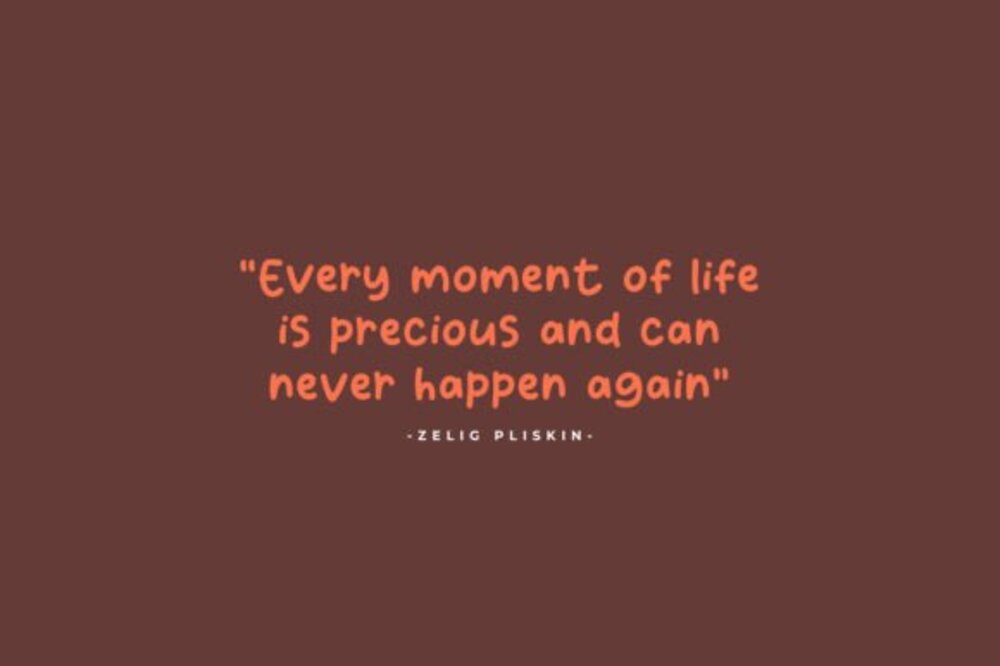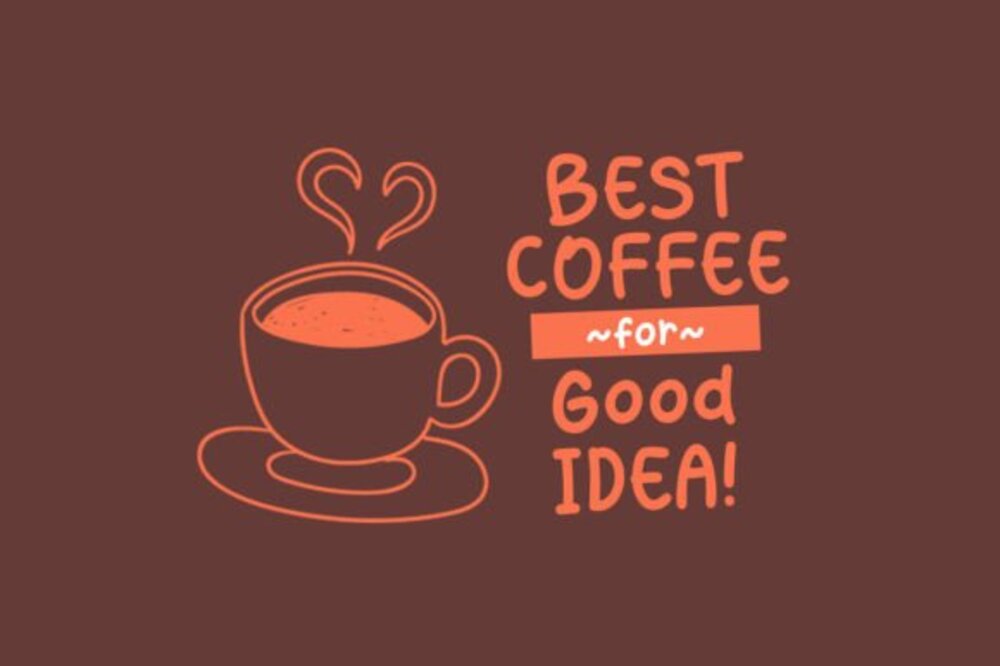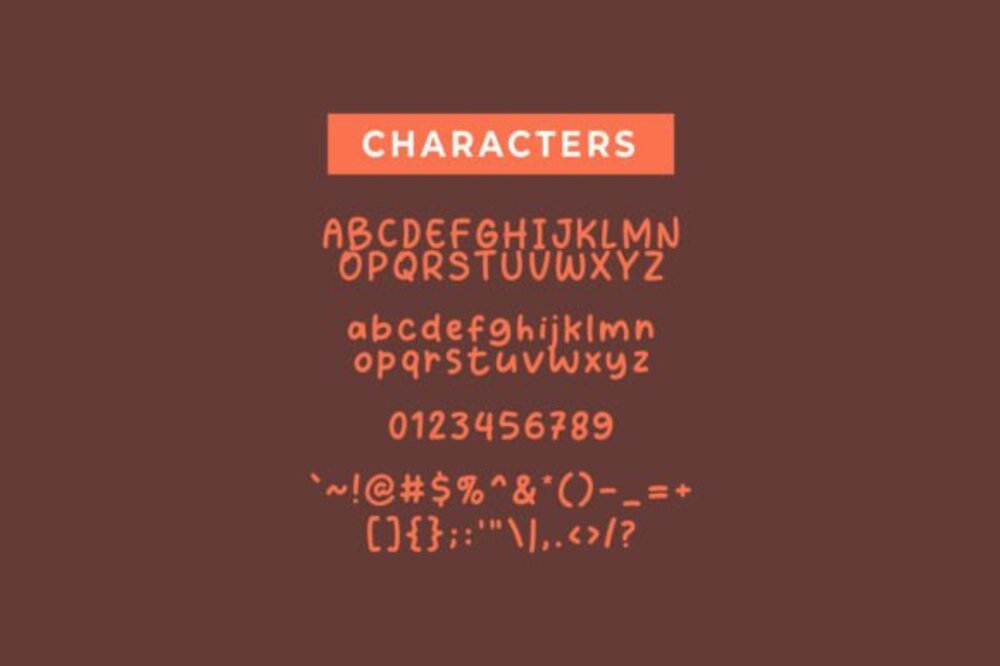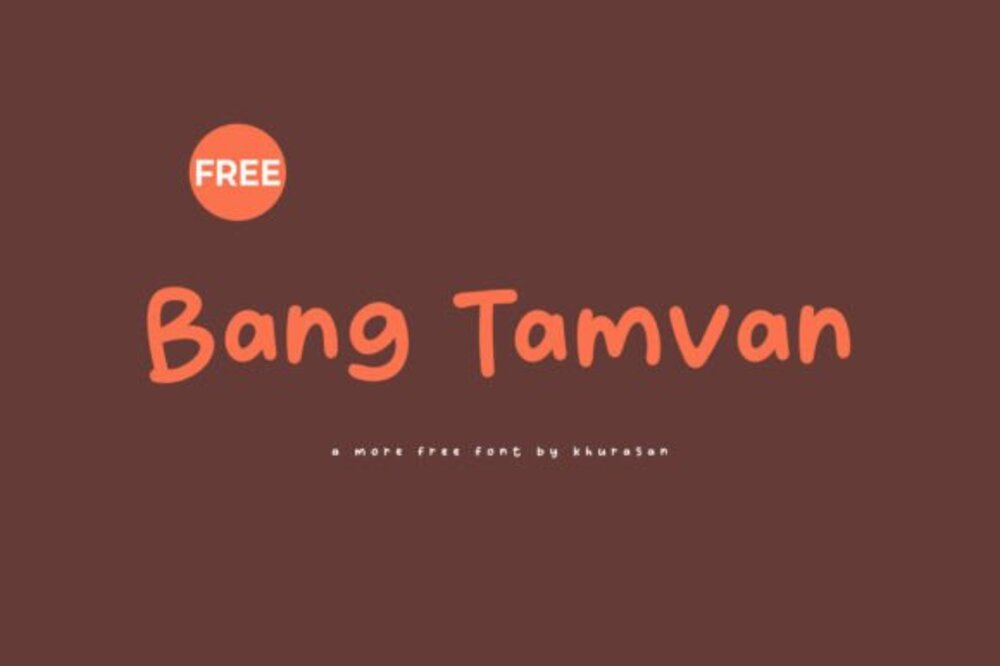
Bang Tamvan Font
Bang Tamvan Font is a bold and dynamic typeface that captures the vibrant energy of Thai culture. Its sharp angles and confident strokes evoke a sense of strength and modernity, making it perfect for projects that demand a touch of urban edge. Ideal for headlines, posters, and branding projects that celebrate contemporary Thai aesthetics, Bang Tamvan adds a touch of bold sophistication to any design.